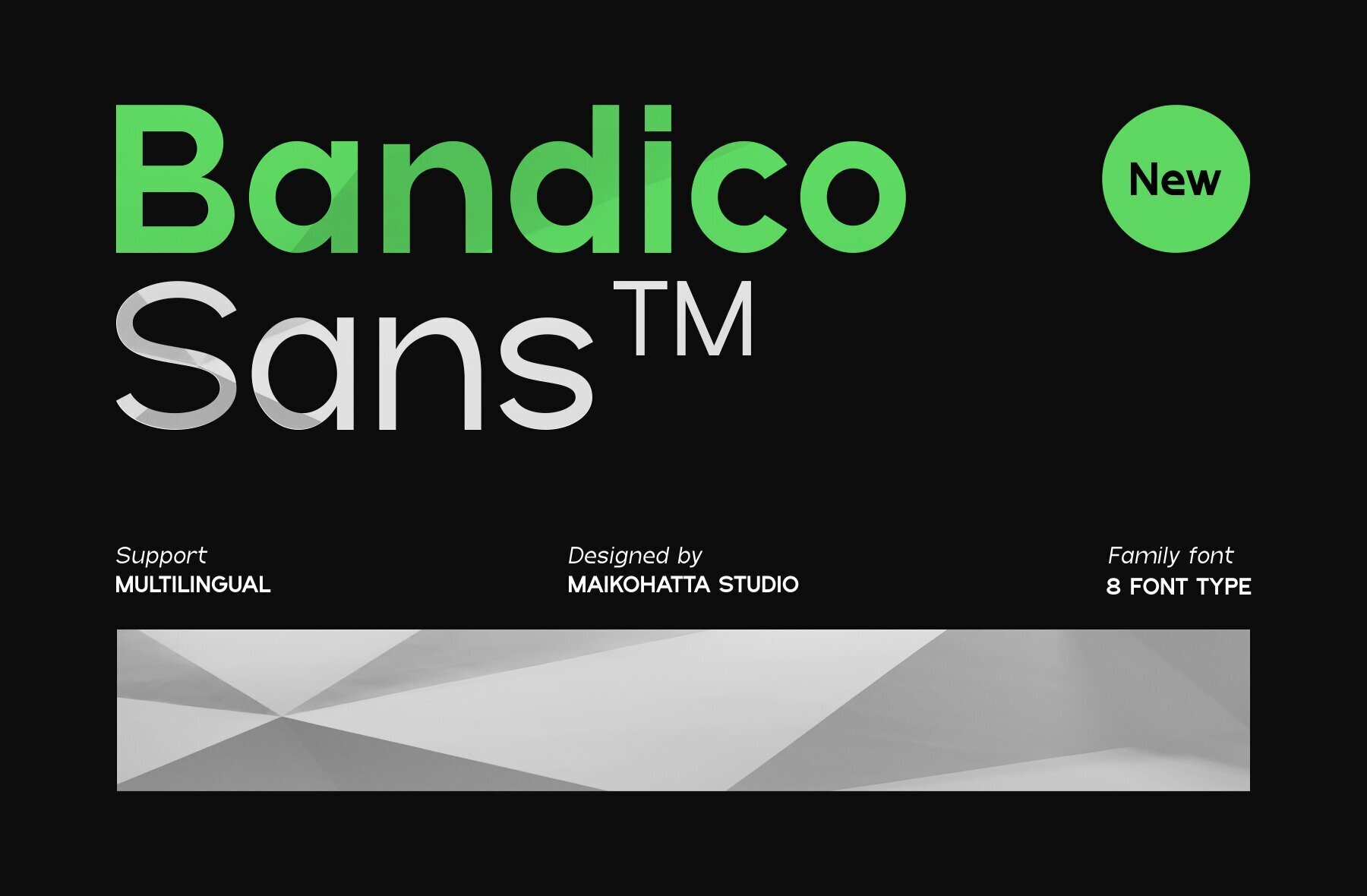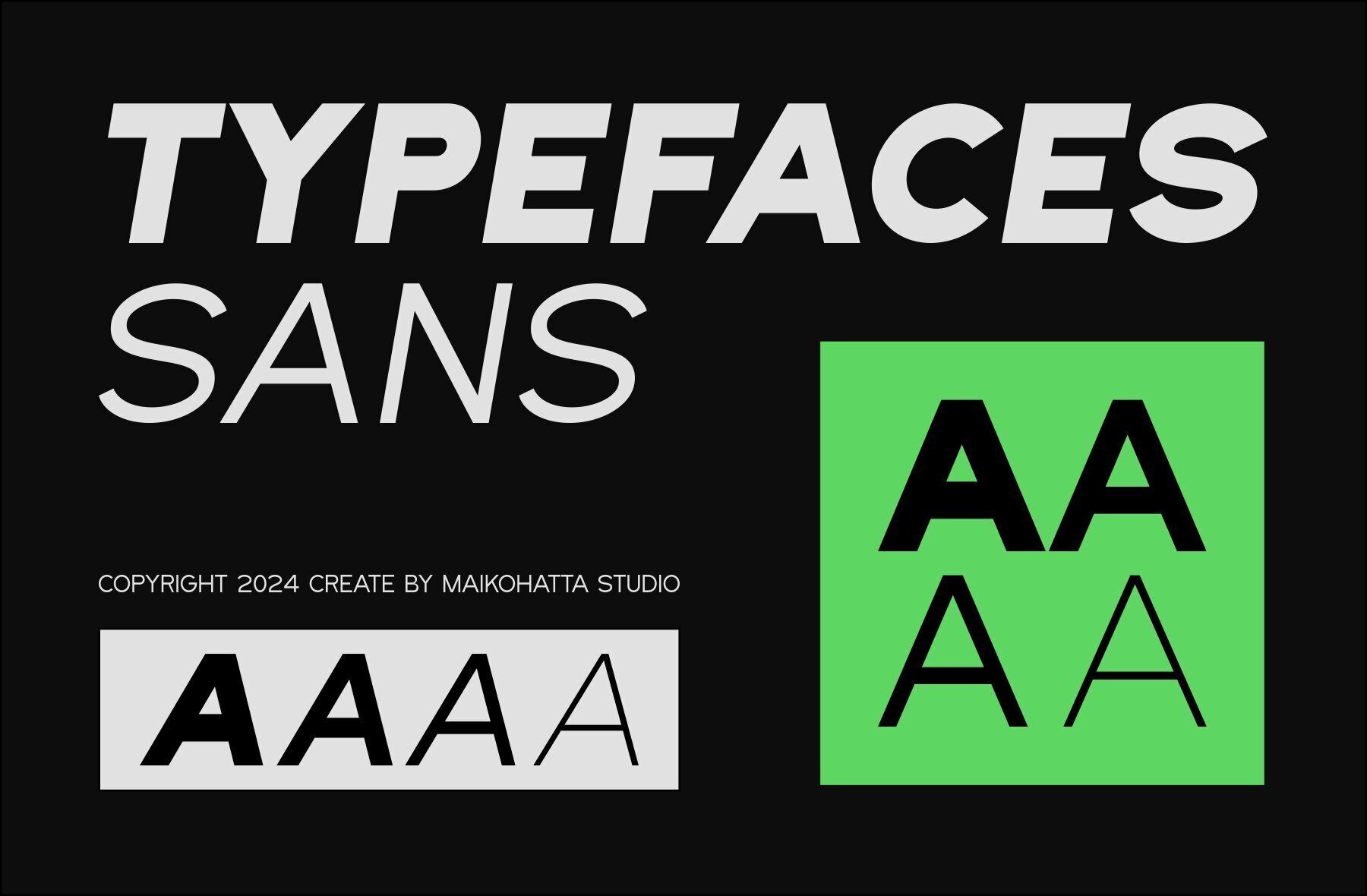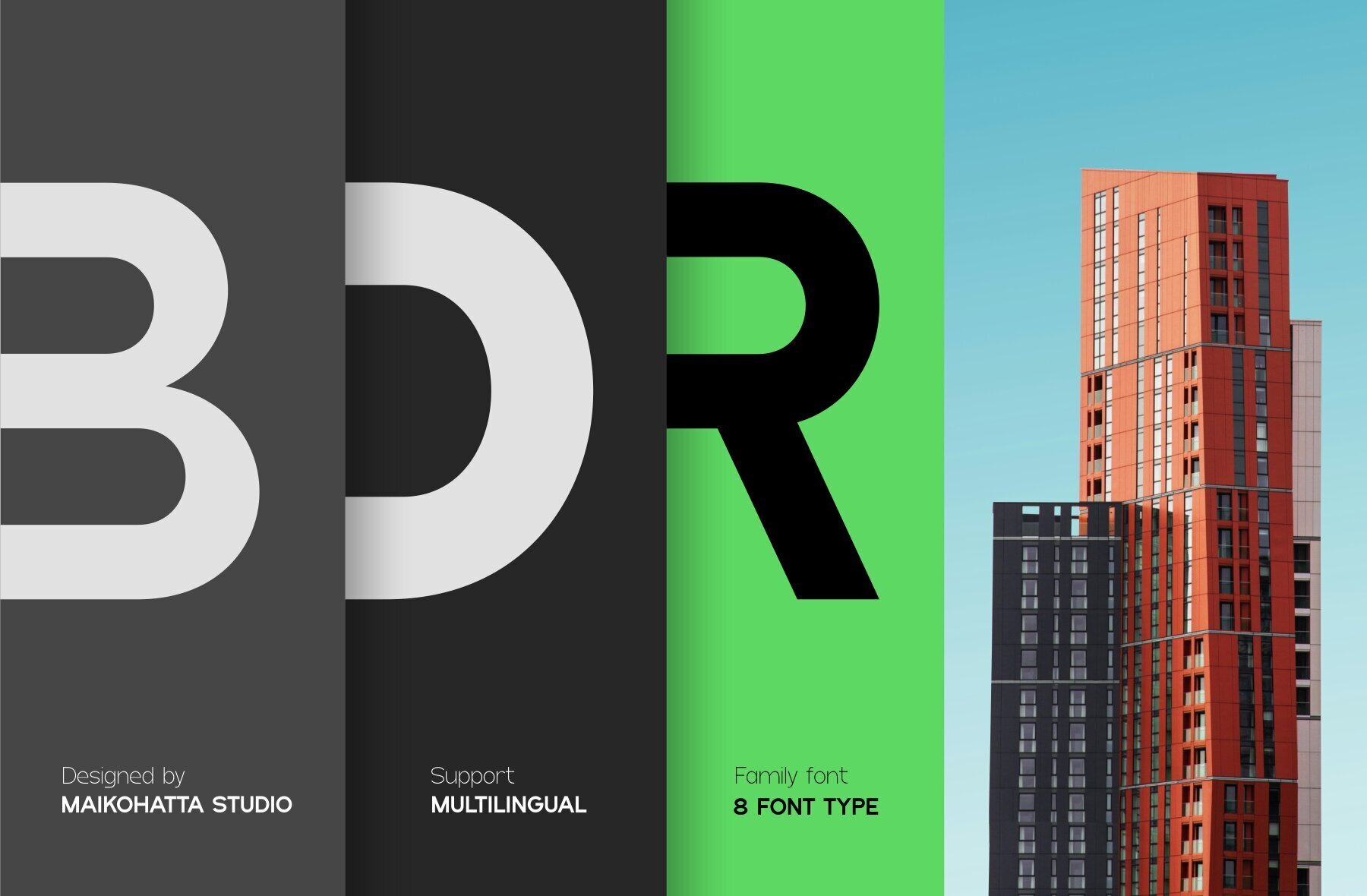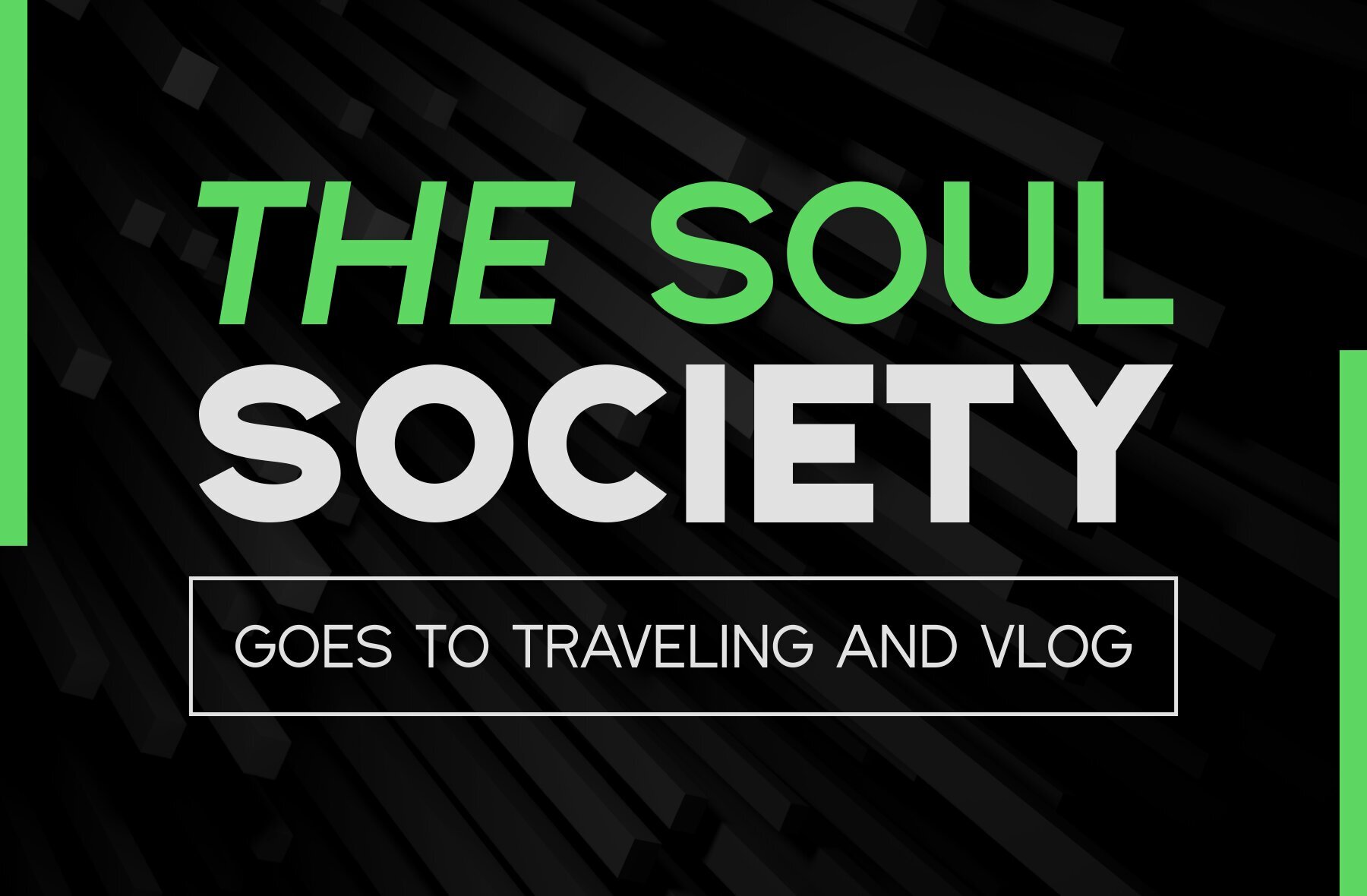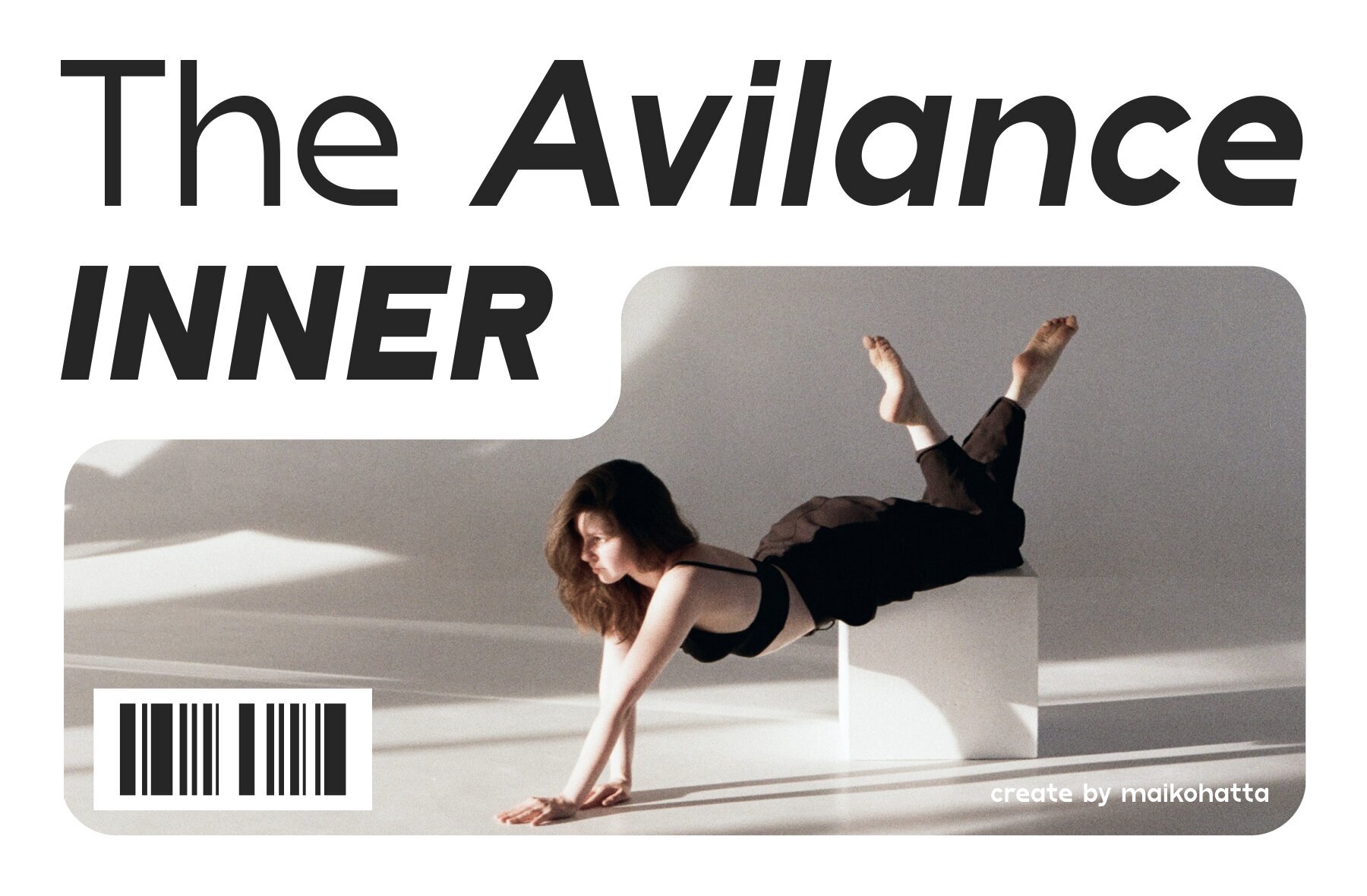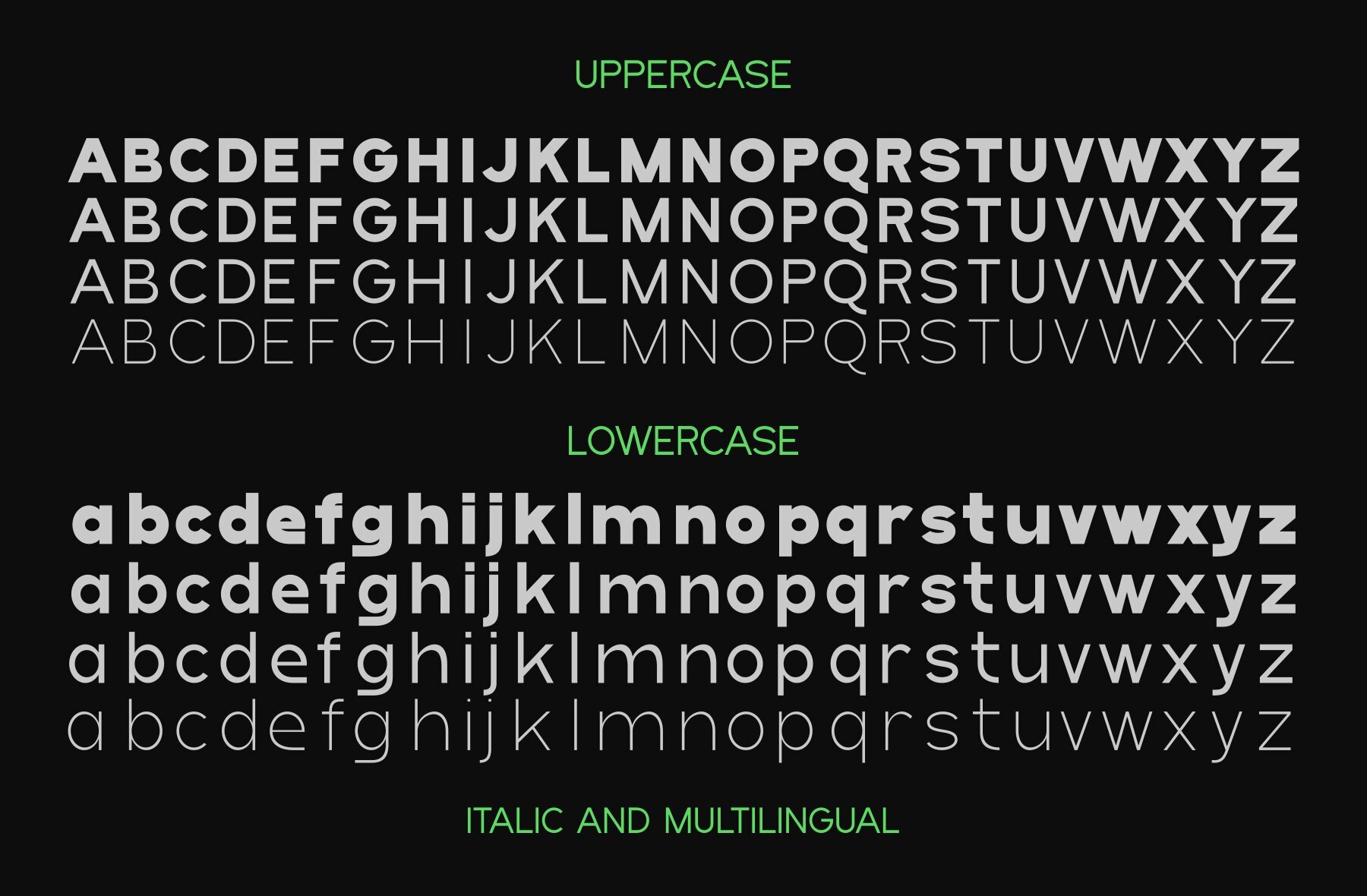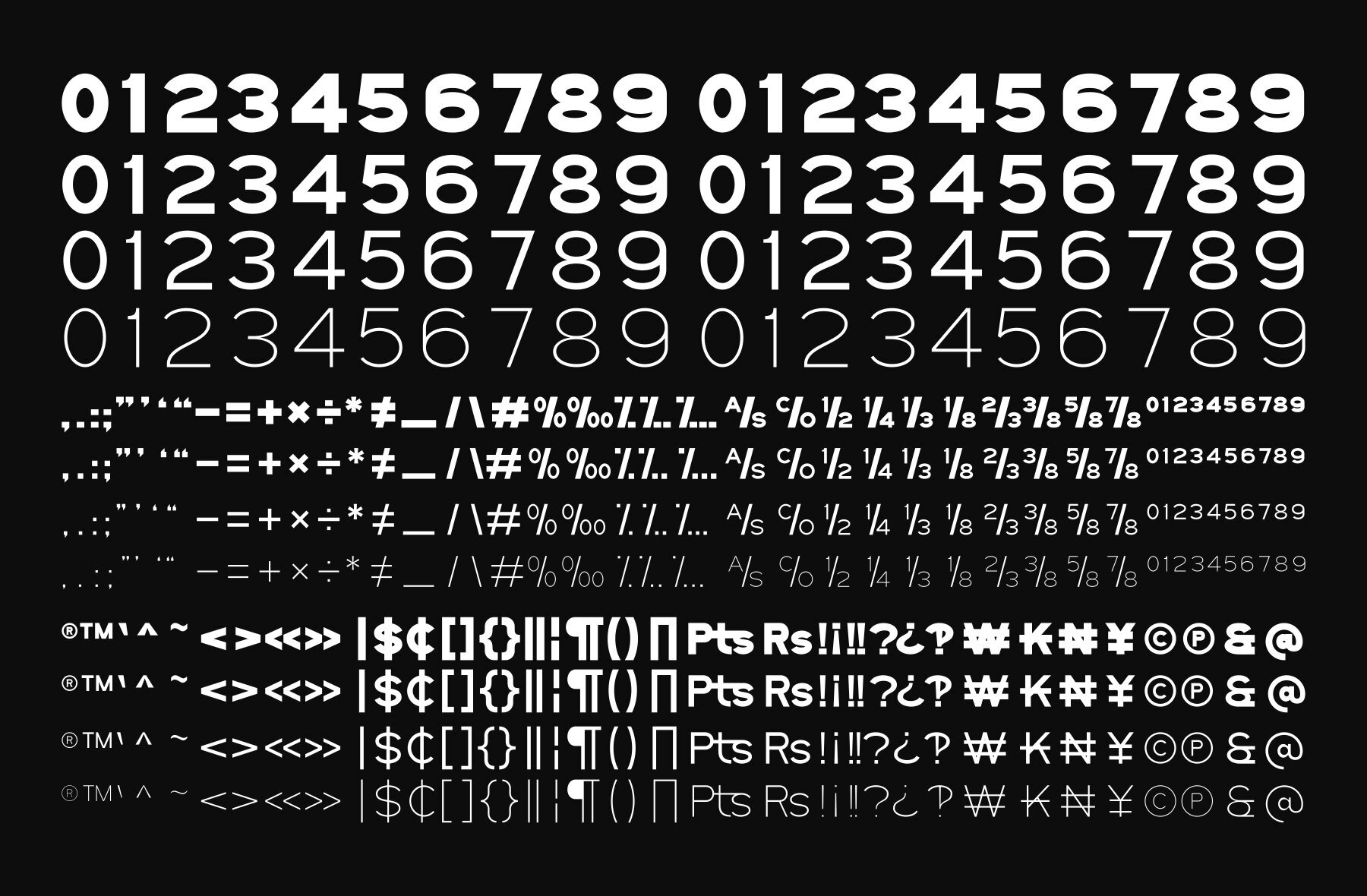
Bandico Font
This bold sans-serif font is perfect for modern and clean design projects. Its geometric shapes and high legibility make it ideal for headlines, titles, branding, and corporate designs. Suitable for both digital and print mediums, this font shines in web design, professional UI design, and any project requiring a minimalist and formal appearance.